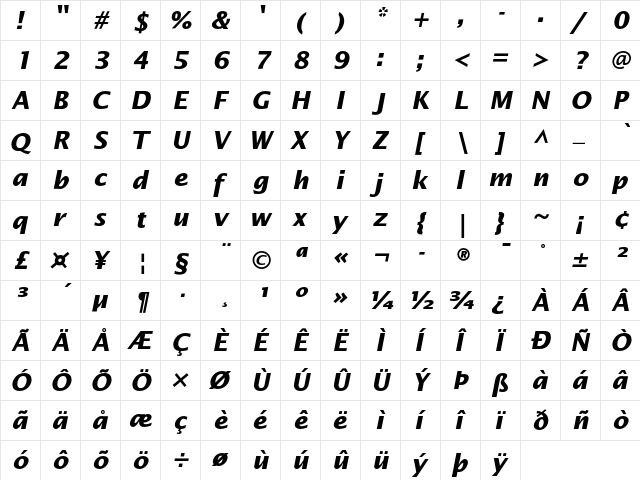
Lucida Sans Bold Italic Font Preview
Lucida Sans Bold Italic
Lucida Sans Bold Italic Font Details
Design Context for Lucida Sans Typeface
Lucida Sans is a composed and adaptable typeface that performs quietly and consistently across a wide range of design contexts. The slanted form adds forward momentum and visual energy. The heavy weight commands attention and anchors typographic hierarchies.
Pro Tip: Try Lucida Sans for annotation and caption copy alongside an upright companion — the contrast in angle creates a dynamic but ordered typographic system.